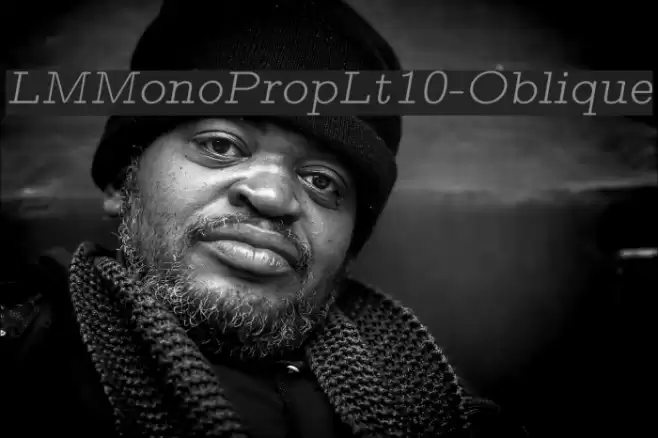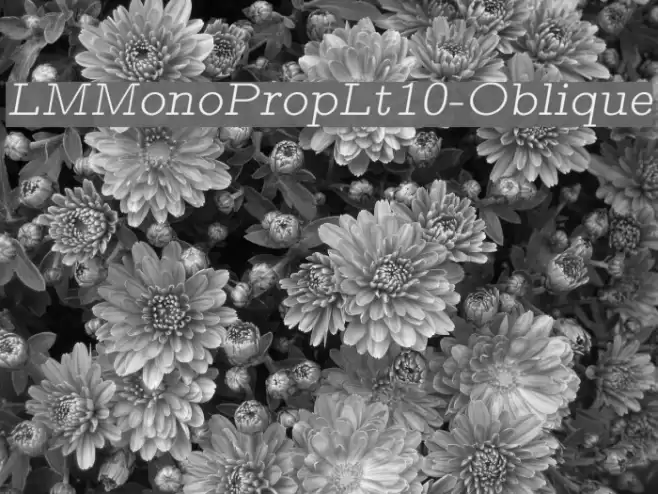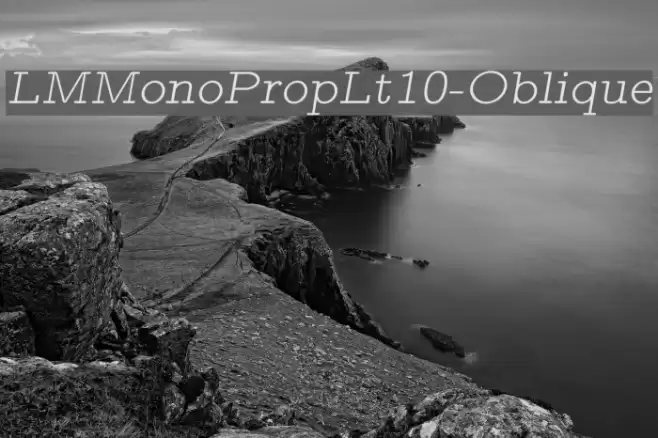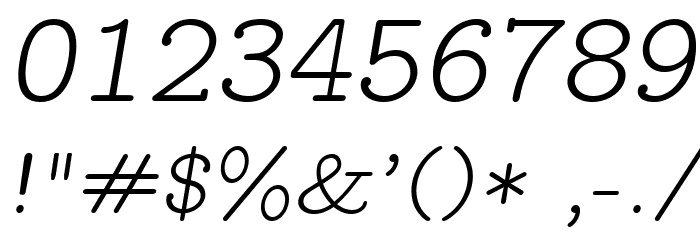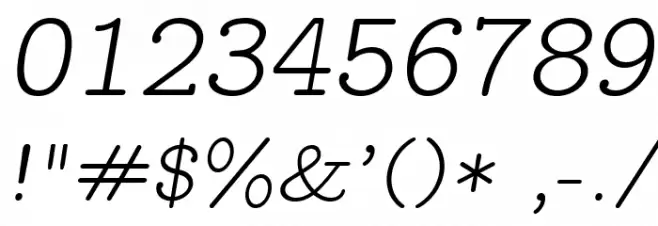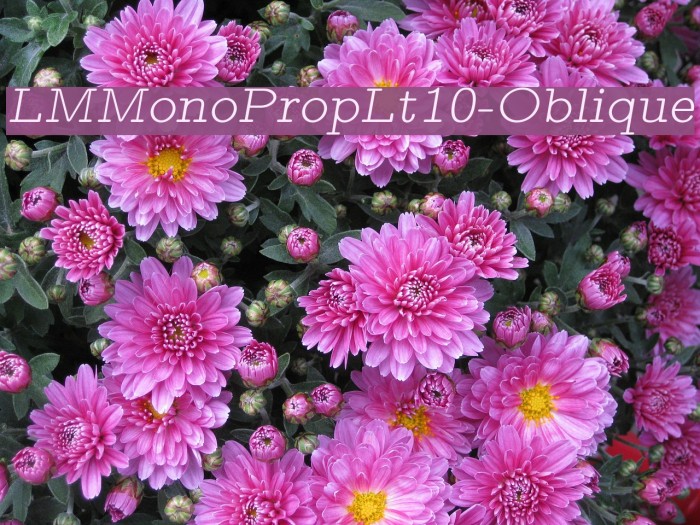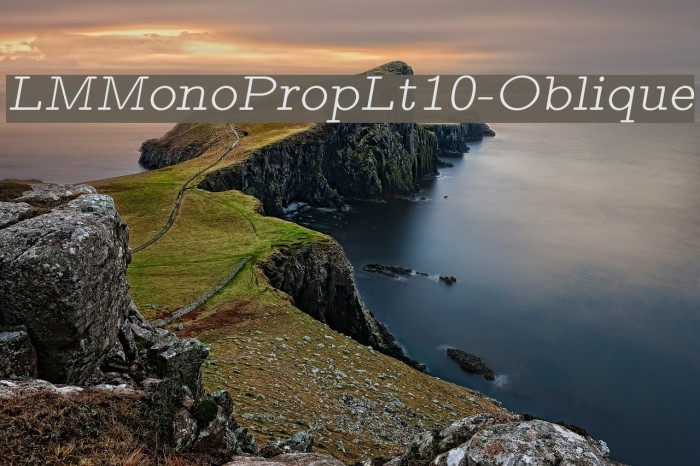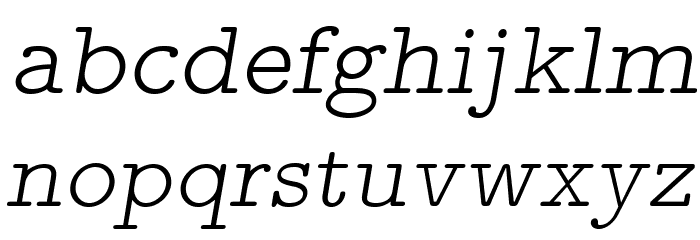
LMMonoPropLt10-Oblique Font
LMMonoPropLt10-Oblique Description
This font features a monospaced design with a slight oblique slant, giving it a modern and technical appearance. The characters are evenly spaced, maintaining a uniform width that is characteristic of monospaced fonts. The strokes are consistent in thickness, providing a clean and precise look. The uppercase letters are bold and prominent, while the lowercase letters maintain a balanced and readable form. The numerals are clear and distinct, making them suitable for coding or tabular data. Special characters are well-defined, enhancing the font's versatility for various applications.
A monospaced, oblique font with a modern and technical style from Uncategorized fonts.
- Proposed Projects: Ideal for coding environments, technical documentation, and any project requiring precise alignment of text.
- Use Case: Coding, Technical documentation, Data tables